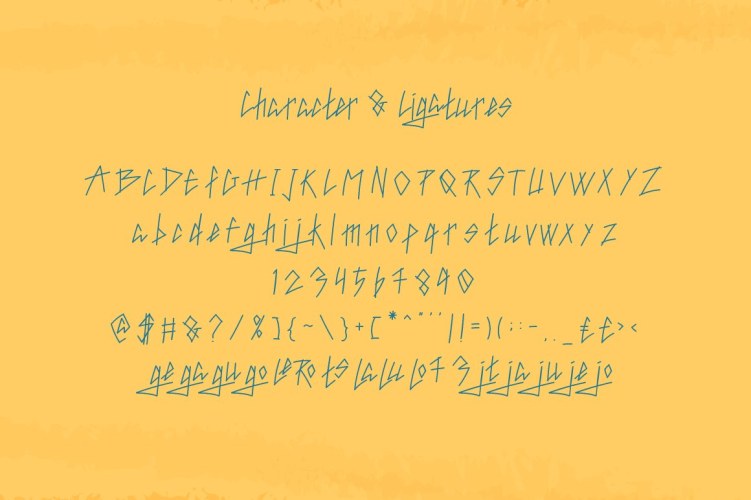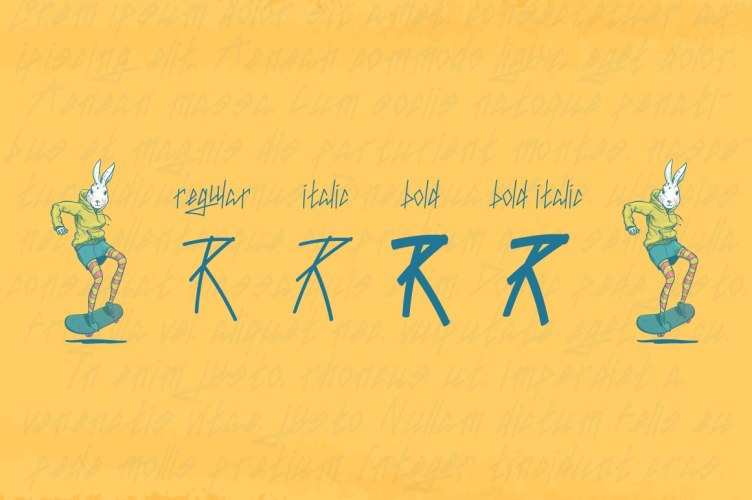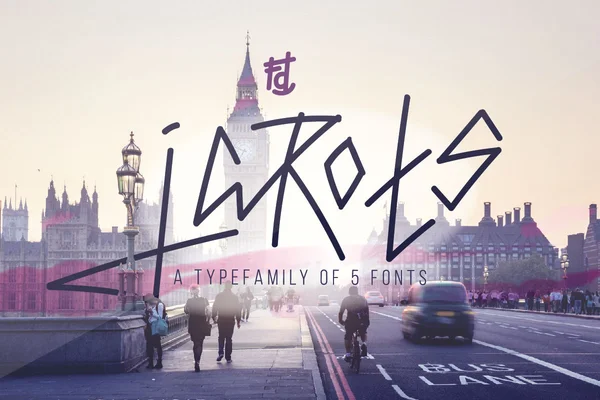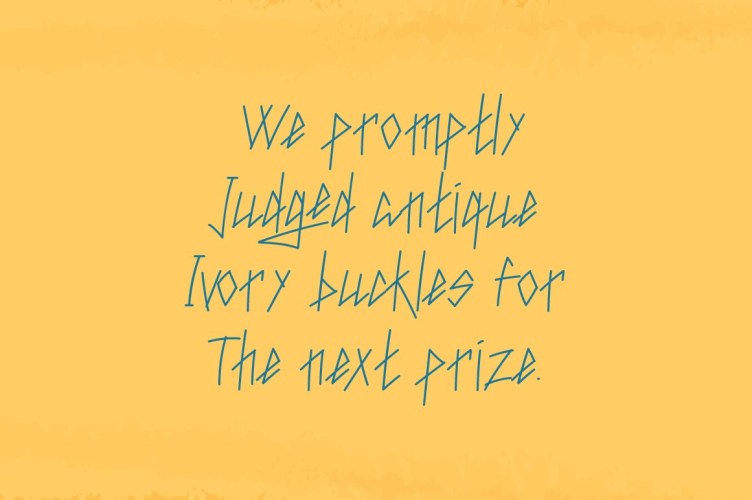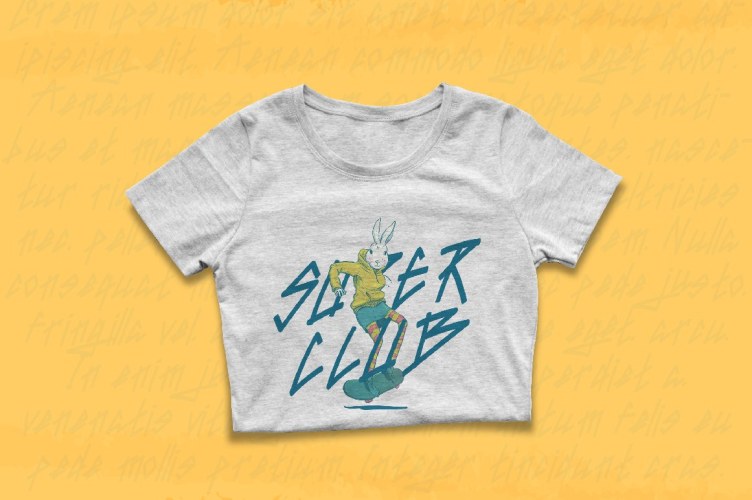
Jarots Font
Jarots Font is inspired by the spontaneous expression of youth. These fonts come with a regular, italic, bold and bold italic version! It applies itself perfectly to logo designs, branding projects, posters, and way more, covering a wide variety of niches.
Jarots Font is a Display Fonts font that brings a professional and versatile look to your projects. Jarots Font is inspired by the spontaneous expression of youth.